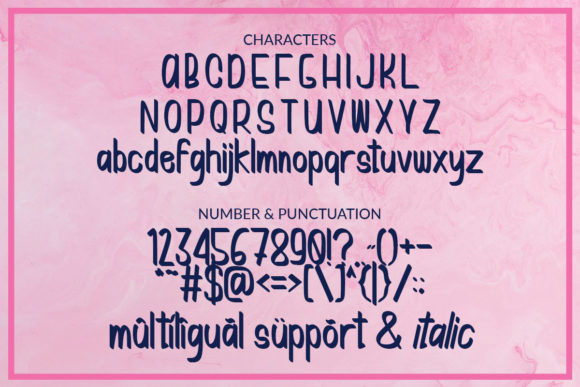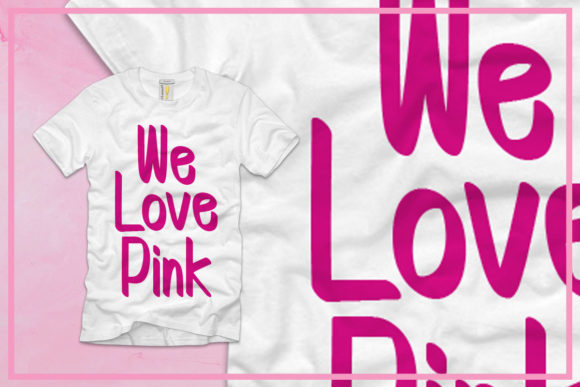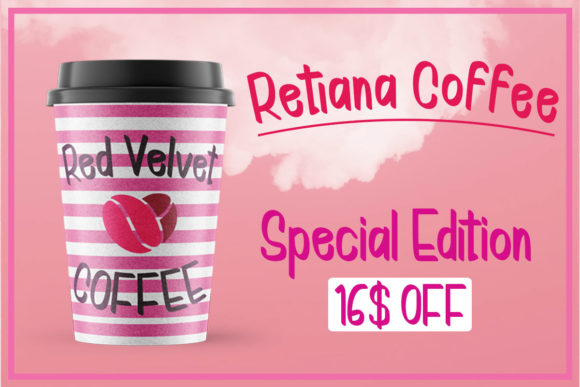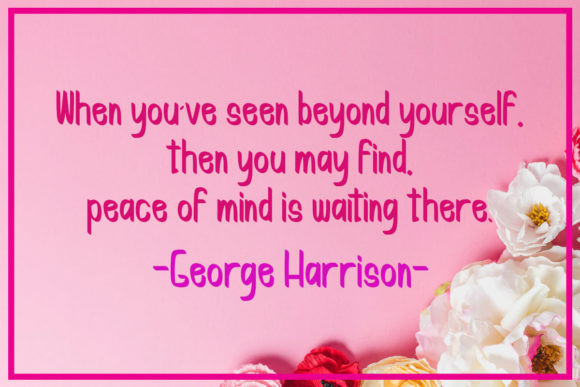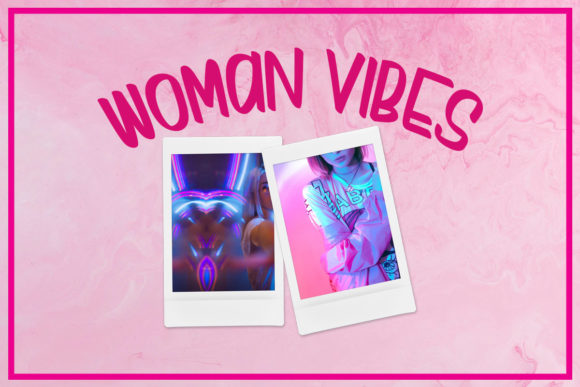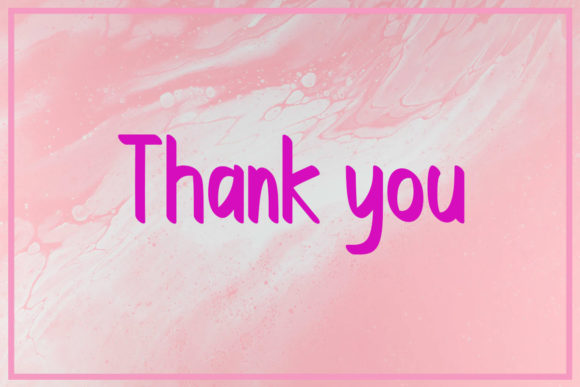
About Kattine Font
Kattine is a cool, casual and friendly handwritten font. Its natural and unique style makes it incredibly fitting to a large pool of designs. The only limit is your imagination!